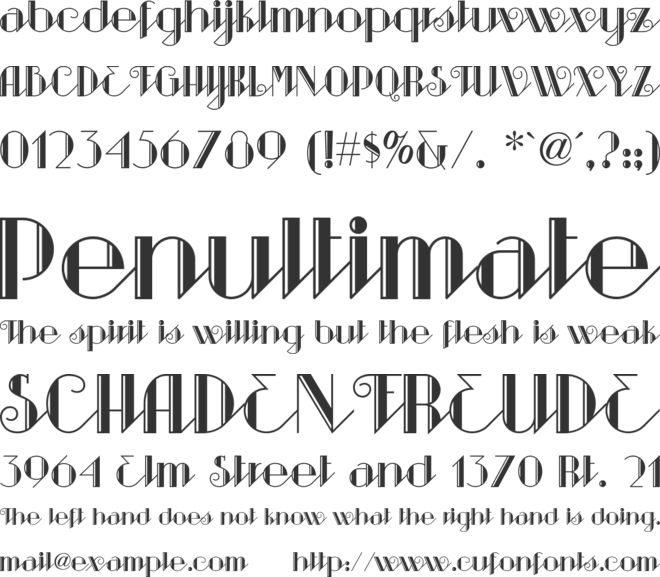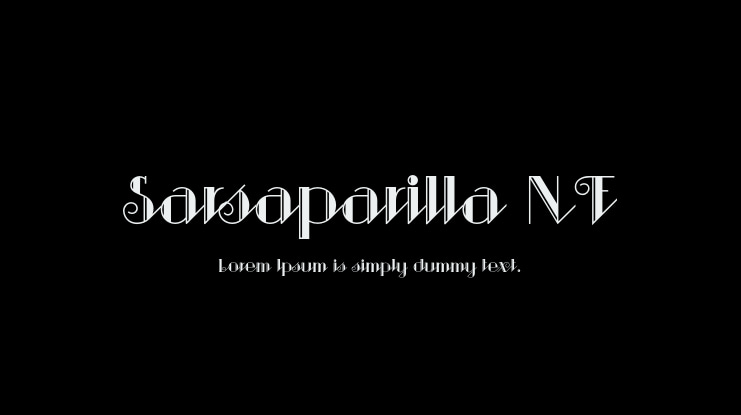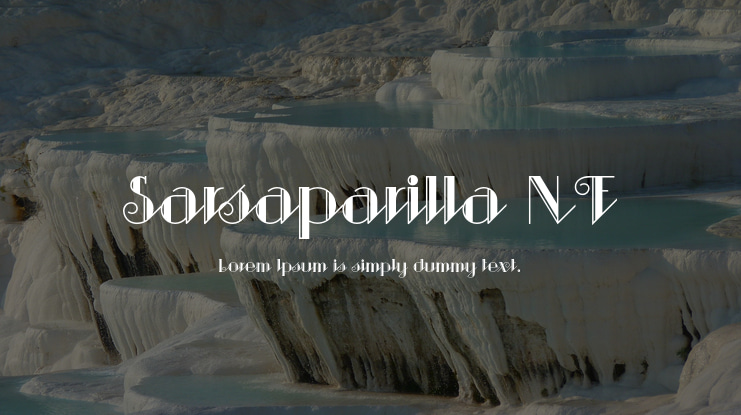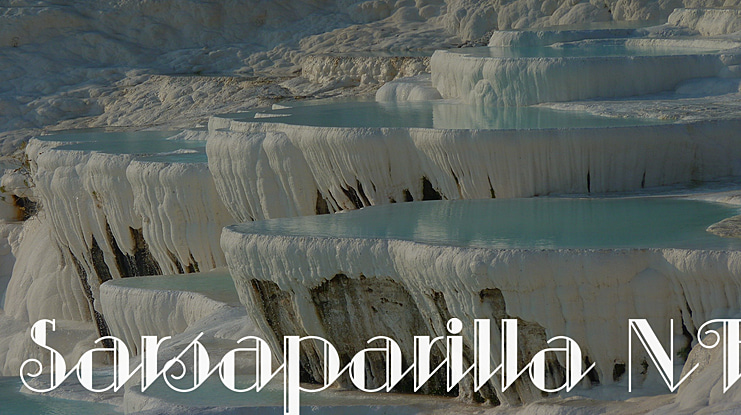
Here’s a geometric connecting script (every letter except the uppercase P — that one had me stumped), that has a crisp, clean, architectural look to it. Inspired by a Spanish ad for oranges, ca. 1930, designer unknown. No special significance to the name, other than the fact that it’s one of those pesky words in English that isn’t pronounced the way it’s spelled (we say “sass-pa-ril-la”).